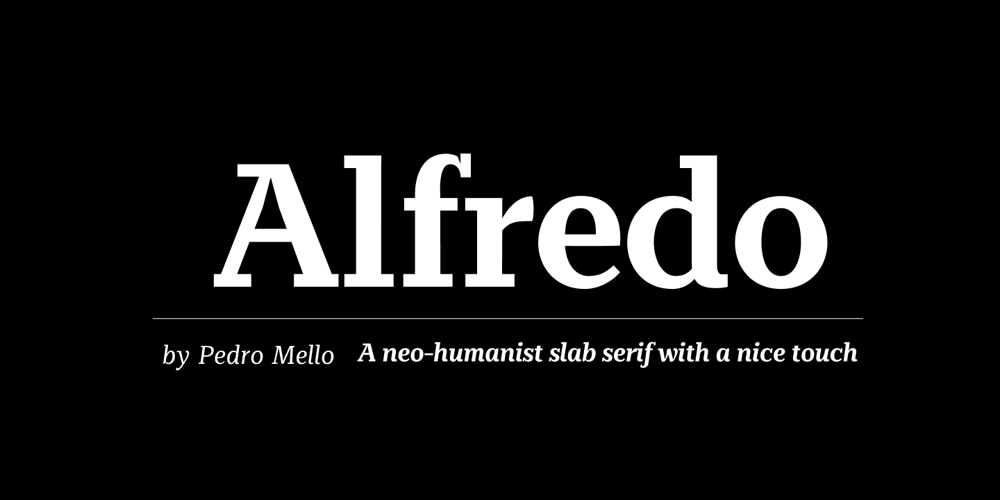
Alfredo Font Family was designed by Pedro Mello and published by Pedro Mello Type Foundry. Alfredo contains 4 styles and family package options. Alfredo is a neo-humanist family with a contemporary touch, presenting a subtlety in forms, in which it’s simu- lates calligraphic fluidity. With rectangular serifs, Alfredo was designed exclusively for publishing projects and texts.